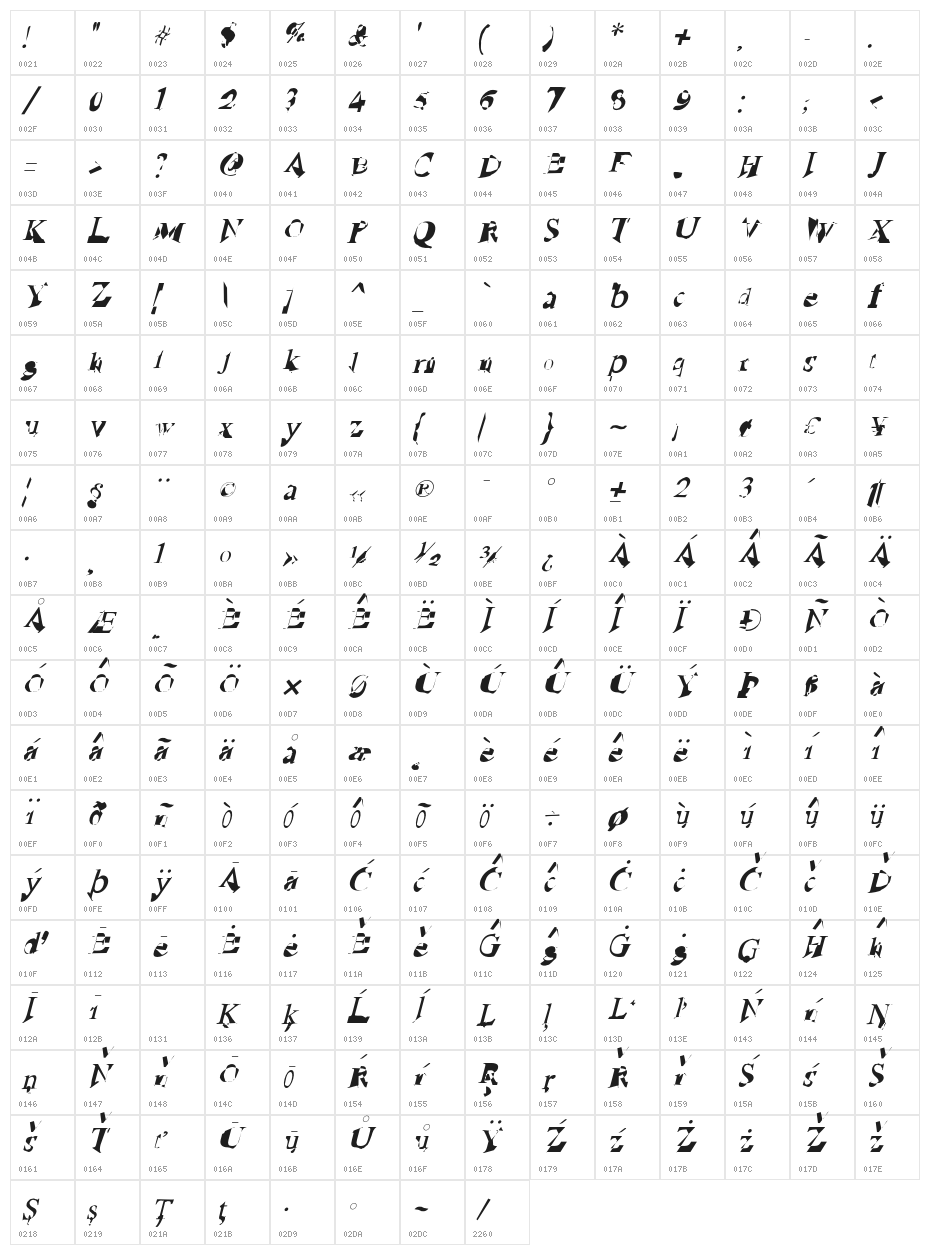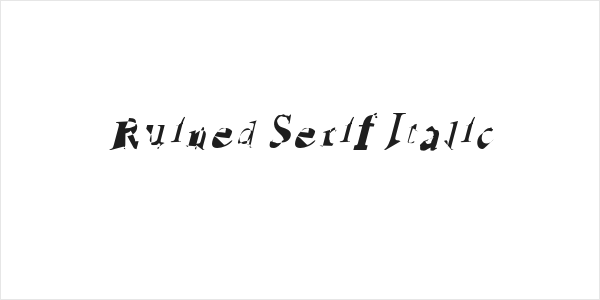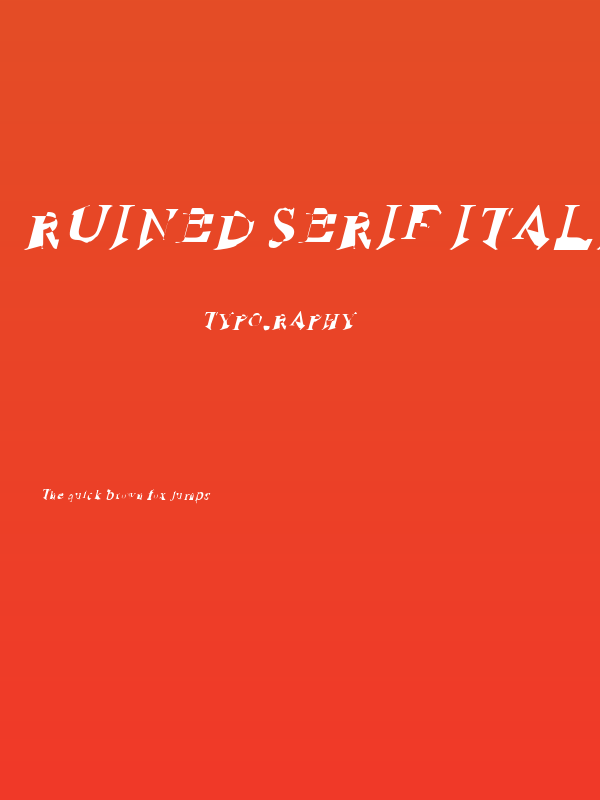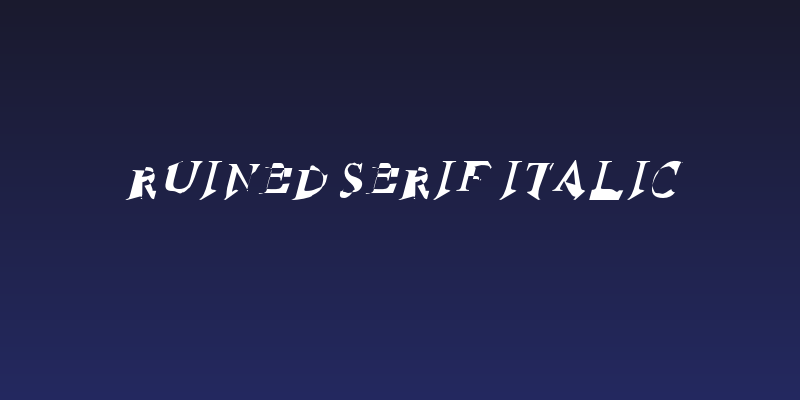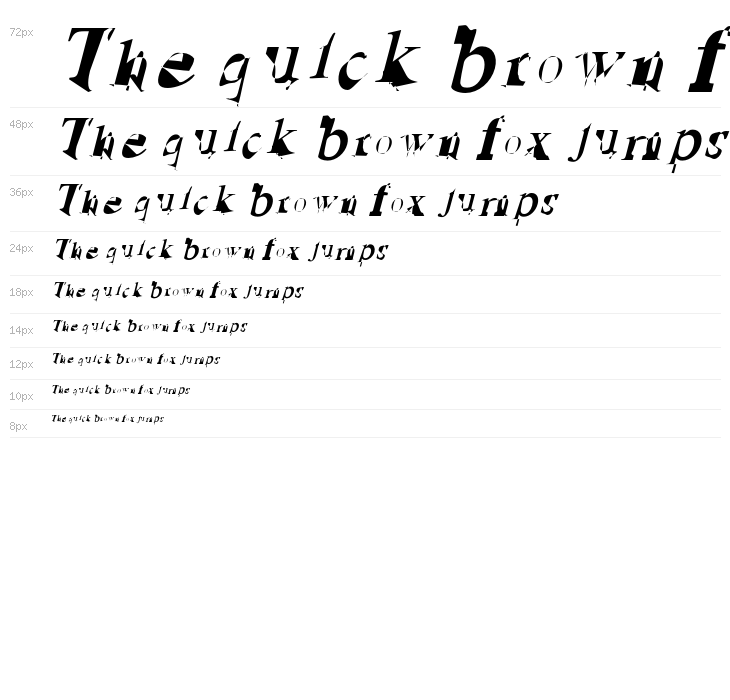
Ruined Serif Italic Font
Ruined Serif Italic Description
This font features a distressed and fragmented appearance, giving it a unique, edgy look. The characters are serif-based with an italic slant, adding a dynamic and slightly chaotic feel. The irregularities and breaks in the strokes create a sense of movement and unpredictability, making it stand out as a bold design choice. Despite its chaotic nature, the font maintains legibility, with each character distinct and recognizable. The combination of serif elements with a modern, deconstructed style makes it suitable for projects that require a dramatic and unconventional aesthetic.